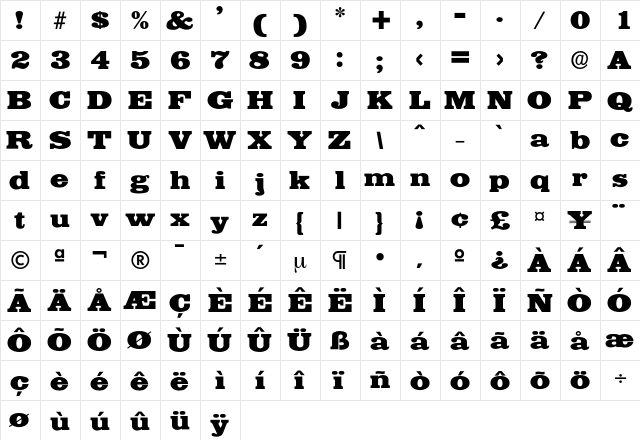
Iraklion Regular
Design Context for Iraklion Typeface
Iraklion is a composed and adaptable typeface that performs quietly and consistently across a wide range of design contexts.